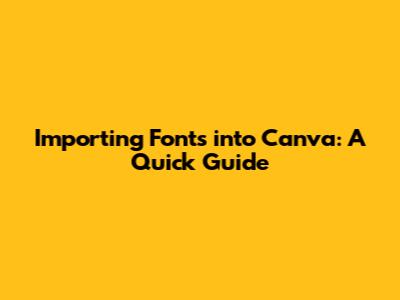
- Brand Consistency: If you're building a brand, you likely have specific fonts that you use across all your materials. Importing these fonts into Canva ensures that your designs stay consistent with your brand identity. This consistency helps build recognition and reinforces your brand message.
- Unique Style: Let's face it, sometimes you just want something different. Canva's built-in fonts are great, but they're used by millions of people. Importing your own fonts allows you to add a unique touch to your designs, setting you apart from the crowd. Whether it's a quirky handwritten font or a sophisticated serif, the right font can elevate your design.
- Access to Specialized Fonts: Certain projects might require specific fonts that aren't available in Canva's library. For example, you might need a font with specific language support or a font that's designed for a particular type of design, such as vintage or modern styles. Importing these fonts gives you the flexibility to tackle any project.
- Creative Freedom: Ultimately, importing fonts into Canva gives you more creative freedom. You're not limited by the platform's font selection, and you can experiment with different typography to achieve the perfect look for your designs. This freedom can lead to more innovative and effective designs.
- Consider Your Brand: Your fonts should reflect your brand's personality and values. If you're building a serious and professional brand, you might want to choose a classic serif font. If you're building a fun and playful brand, you might want to choose a quirky sans-serif font.
- Think About Readability: Your fonts should be easy to read, especially for body text. Avoid using fonts that are too decorative or that have unusual letterforms. Choose fonts that are clear and legible at different sizes.
- Use Font Pairings: Combining different fonts can create a visually appealing and dynamic look. However, it's important to choose fonts that complement each other. A good rule of thumb is to pair a serif font with a sans-serif font. You can also use online tools to find font pairings that work well together.
- Limit Your Font Choices: Using too many fonts in a design can make it look cluttered and confusing. Stick to a maximum of two or three fonts per design. This will help create a more cohesive and professional look.
- Experiment and Have Fun: Don't be afraid to experiment with different fonts and see what works best for your designs. Try different combinations and see how they look. The most important thing is to have fun and let your creativity shine!
Hey guys! Ever felt like Canva's font library just wasn't cutting it? Want to inject a bit more of your personality or brand into your designs? Well, you're in luck! Canva makes it super easy to upload your own fonts and use them in your projects. Whether you're creating social media graphics, presentations, or marketing materials, having the right font can make all the difference. This guide will walk you through the simple steps to get your favorite fonts into Canva, so you can unleash your creativity and make your designs truly stand out. So, let's dive in and get those new fonts working for you!
Why Import Fonts into Canva?
Before we get into the how-to, let's talk about the why. Why should you bother importing fonts into Canva when it already has a pretty decent selection? Here’s the deal: